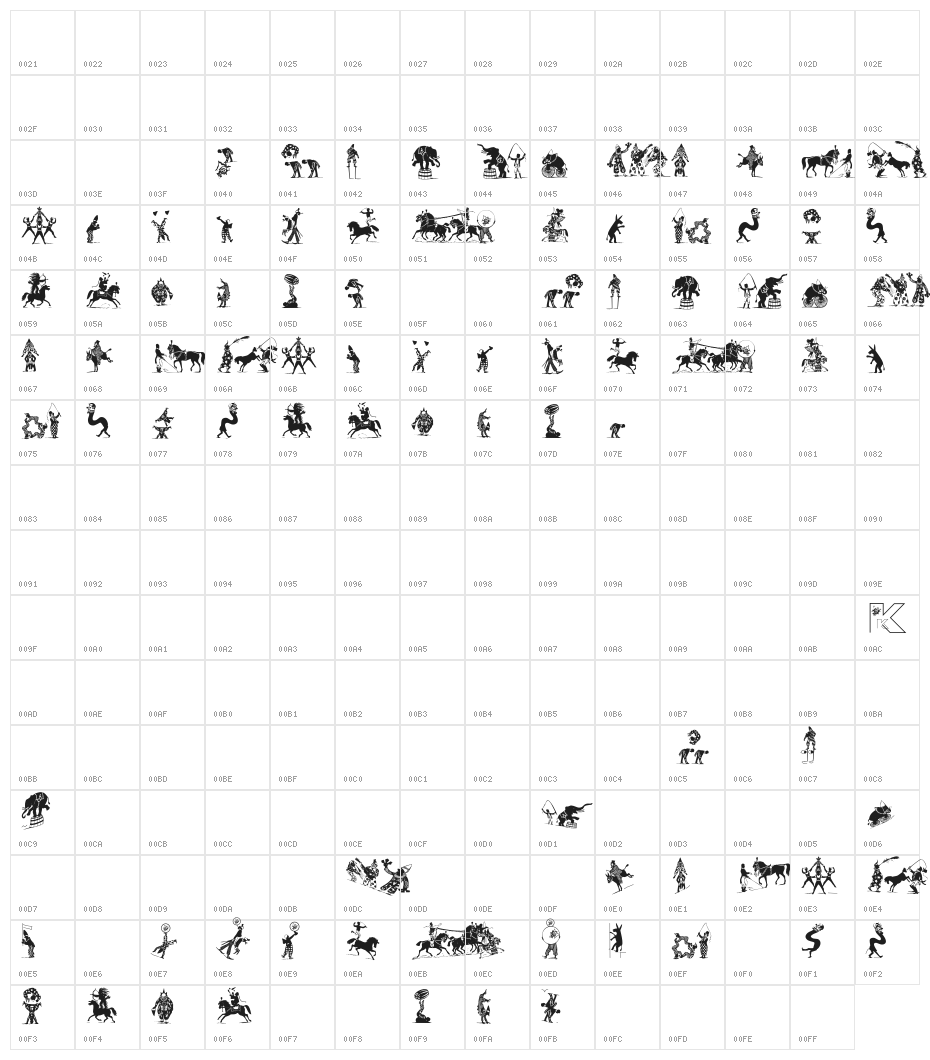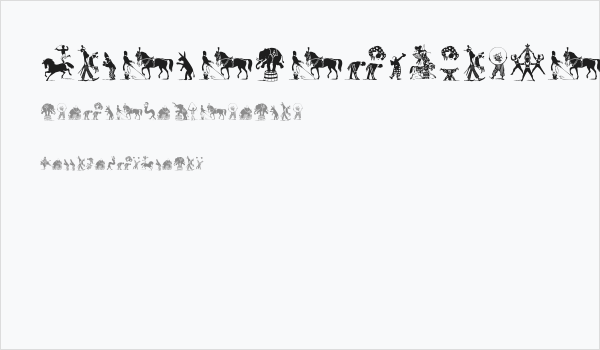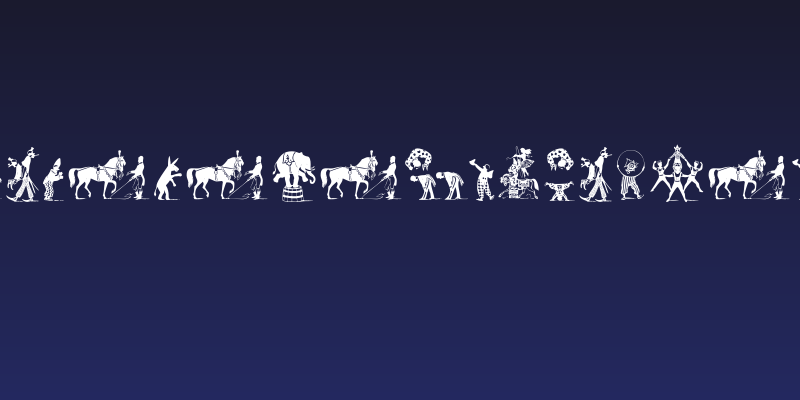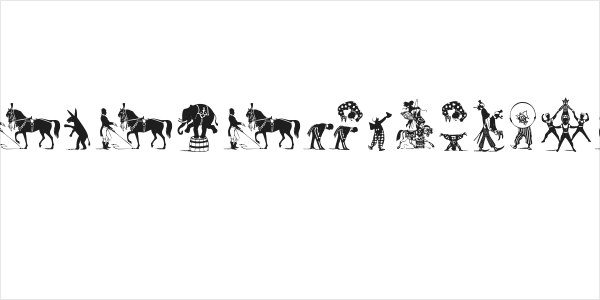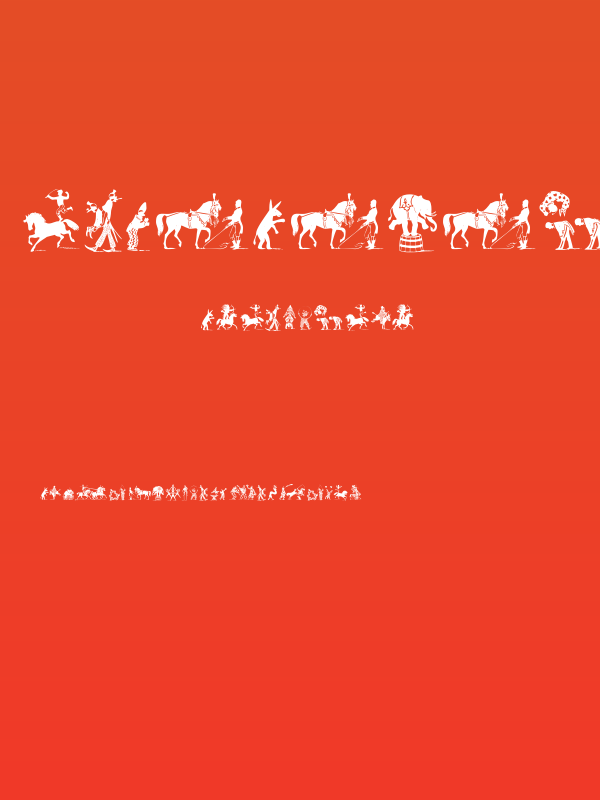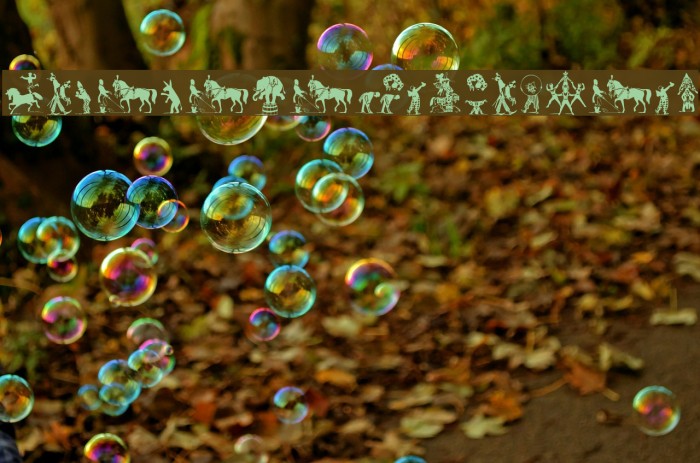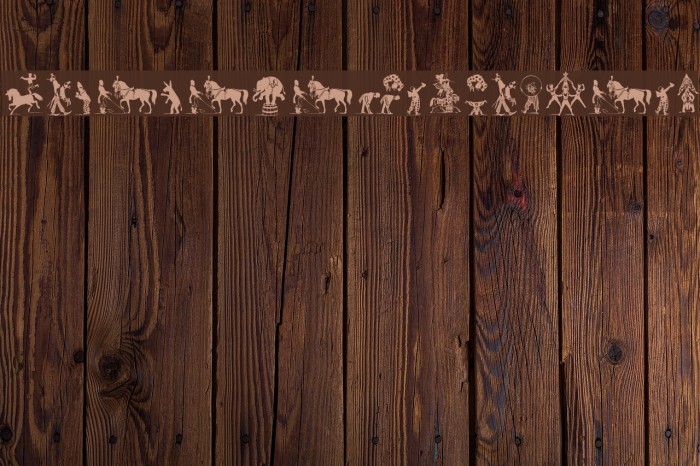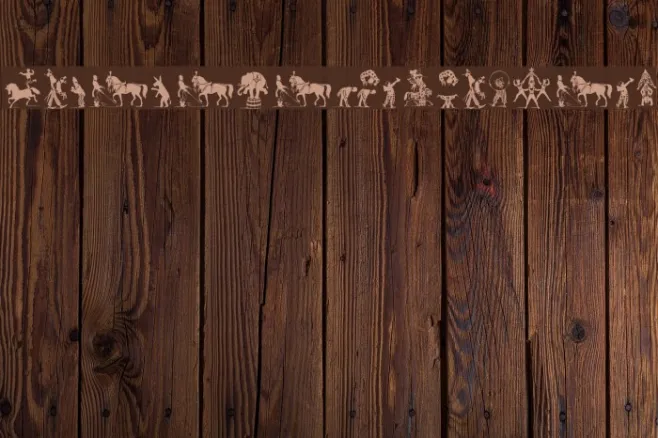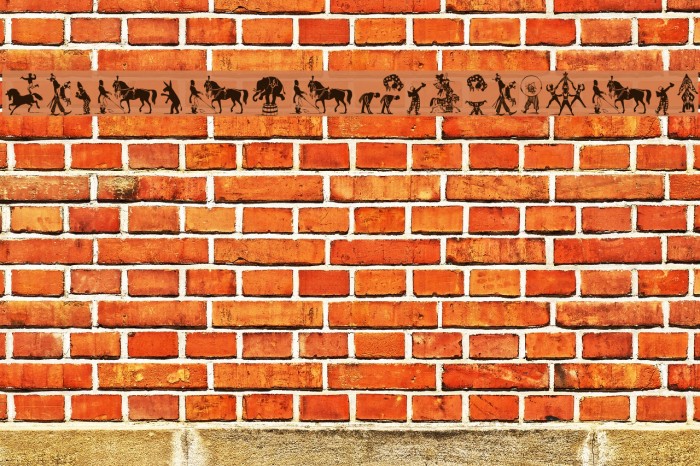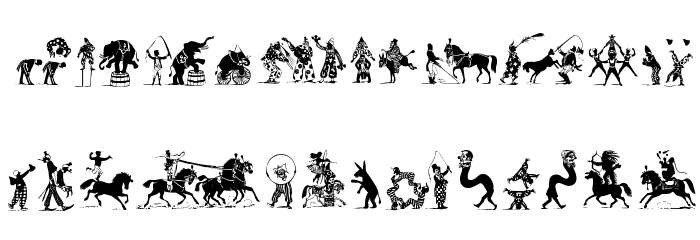
PoliticiansWorking Font
PoliticiansWorking Description
This is a decorative font featuring whimsical, cartoon-like characters and scenes instead of traditional letters and numbers. Each character is represented by a unique illustration, often depicting humorous or fantastical scenarios. The style is playful and imaginative, with intricate details that add a sense of storytelling to each glyph. The font captures a sense of fun and creativity, making it stand out as a unique artistic expression rather than a conventional typeface.
| Use Case | Logos, Posters, Creative Projects |
| Proposed Projects | Ideal for creative projects such as children's books, playful posters, or themed event invitations where a unique and artistic touch is desired. |